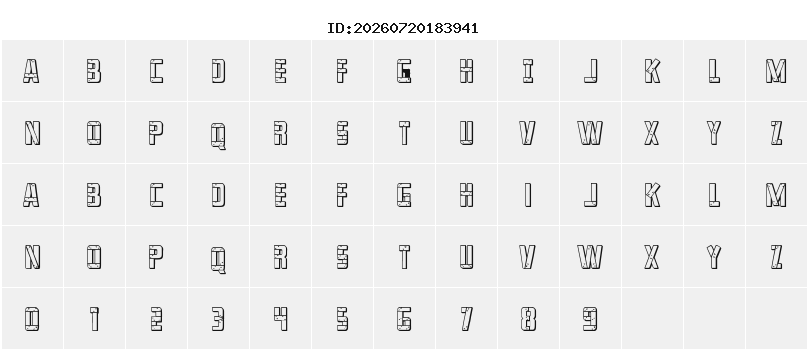
Frank-n-Plank 3D Bold Preview
• Font Name: Frank-n-Plank 3D Bold
• Full Font Name: Frank-n-Plank 3D Bold
About Frank-n-Plank 3D Bold.ttf
Frank-n-Plank 3D Bold.ttf is a modern, elegant sans-serif font designed for ultimate readability and visual harmony. Perfect for branding, headlines, web design, and print materials.